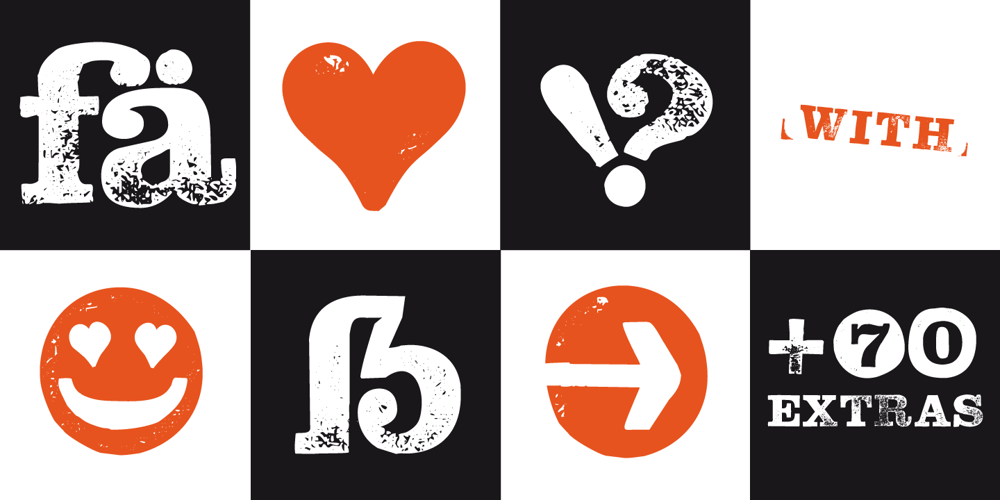
Hand Stamp Slab Serif Rough
Hand Stamp Slab Serif Rough font
Hand Stamp Slab Serif Rough Font Family was designed by Manuel Viergutz and published by TypoGraphicDesign. Hand Stamp Slab Serif Rough contains 4 styles and family package options. The typeface “Hand Stamp Slab Serif Rough” was designed for the Typo Graphic Design font foundry in 2017 by Manuel Viergutz. It is a display font with a classic slab serifs based on real rubber stamp letters for a authentic, rough & dirty, stamped-by-hand appearance. It provides a vintage look through state-of-the-art Open Type features such as contextual alternates that cycle automatically through 5 different letter variants for each character to create a varied look, just as if the letters were stamped by hand. The font is intended for use in logos, magazines, posters, advertisements, and as a webfont for decorative headlines. The font works best for display sizes. There are 1031 glyphs with 5× A–Z, 0–9 & a–z and 70+ decorative extras like arrows, dingbats, symbols, geometric shapes, catchwords, and many alternative letters. A range of figure set options including oldstyle figures and additional deco­ra­tive liga­tures (type the word “love” for ❤ … ), Ver­sal Eszett (German Capital Sharp S), symbols, and emojis. Have fun with this font & use the DEMO-FONT (with a reduced glyph-set) FREE!